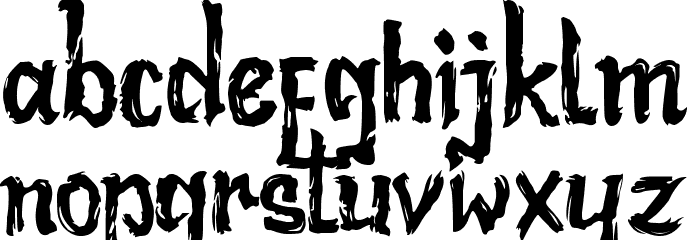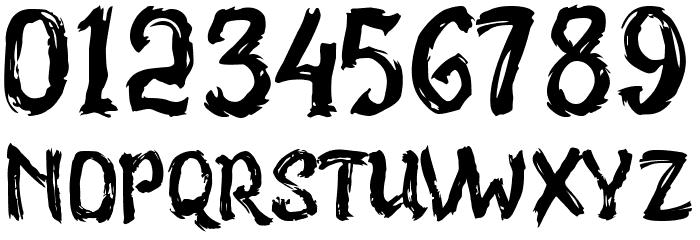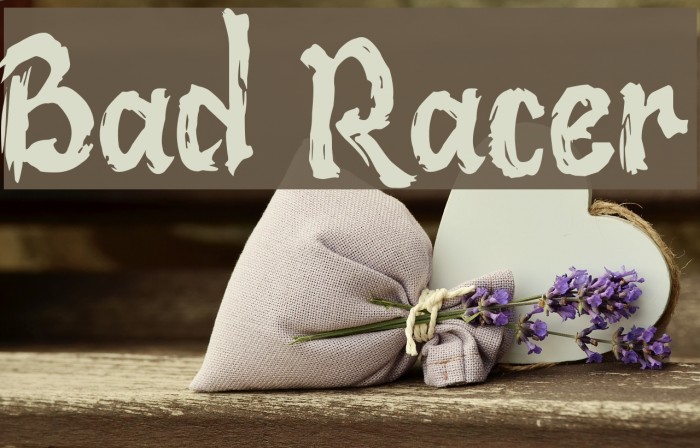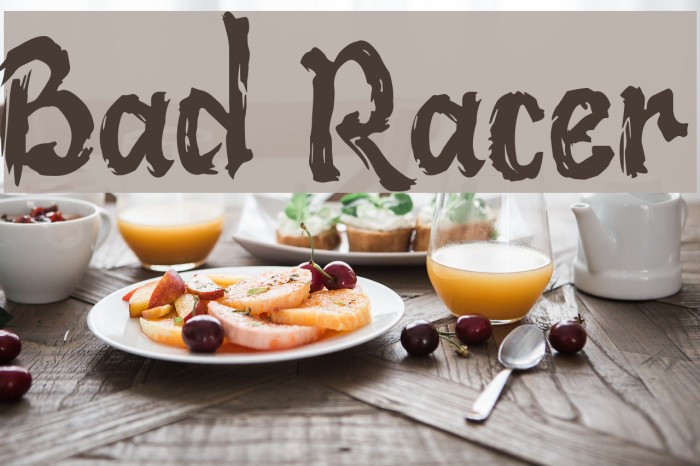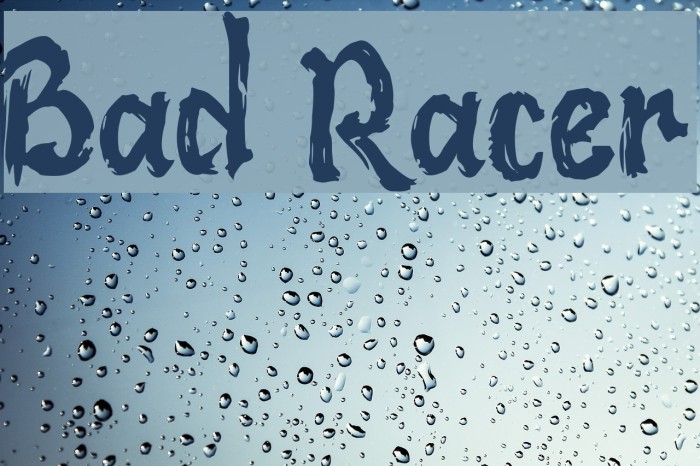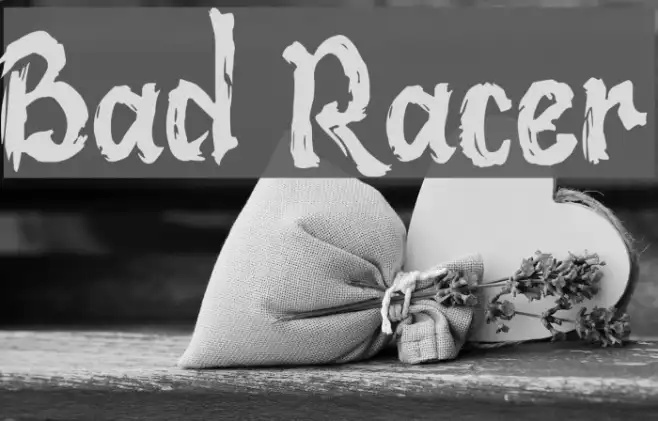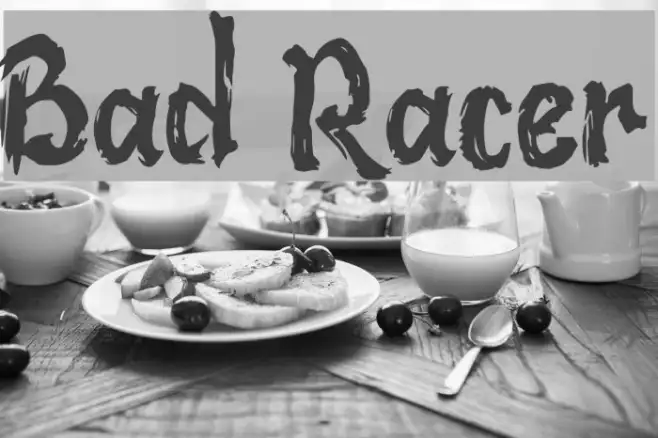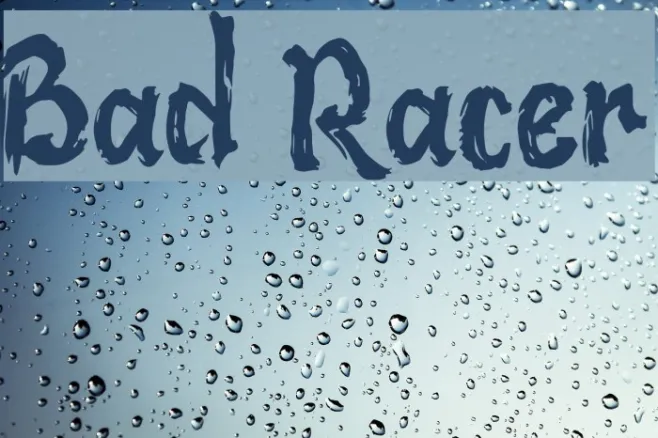
Bad Racer Font
This font exhibits a bold and dynamic style with a brush-like texture, giving it an energetic and raw appearance. The characters are irregular and have a hand-painted look, with strokes that vary in thickness, creating a sense of movement and intensity. The uppercase and lowercase letters maintain a consistent aesthetic, while the numbers and special characters integrate seamlessly with the overall design. The font's unique style makes it stand out, ideal for projects that require a strong visual impact.
A bold, brush-style font with dynamic, irregular strokes.
- Proposed Projects: Ideal for posters, album covers, sports branding, and any project needing a bold, energetic look.
- Overall Style: Modern, Energetic